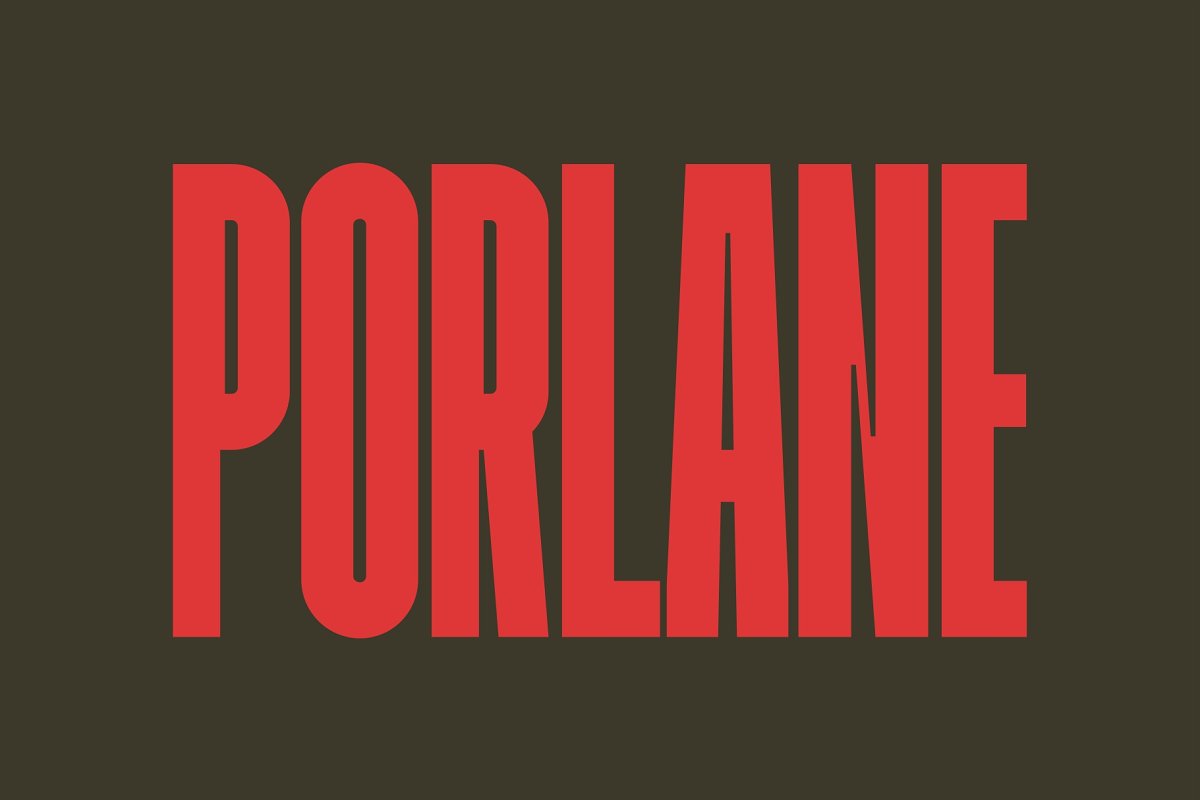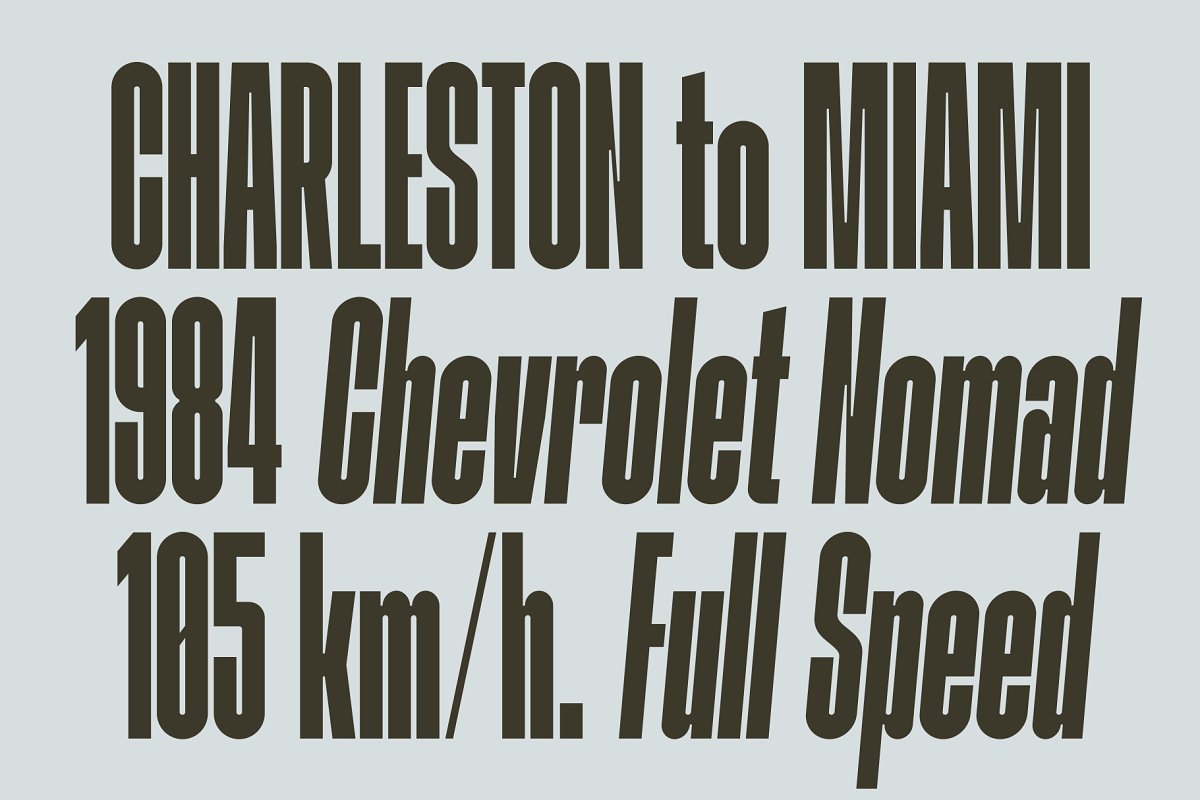
About the Porlane Font Family
Porlane™ is a condensed sans-serif typeface created to be used for bold titles with distinctive shapes into a display fonts way to make it legible for contemporary use, Come with single weight, legible and expressive shapes, Its glyph catalog provides an easy to compose system for Latin languages with high x-height and tight line spacing,